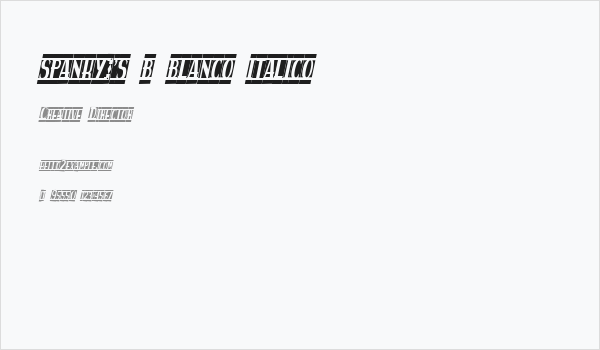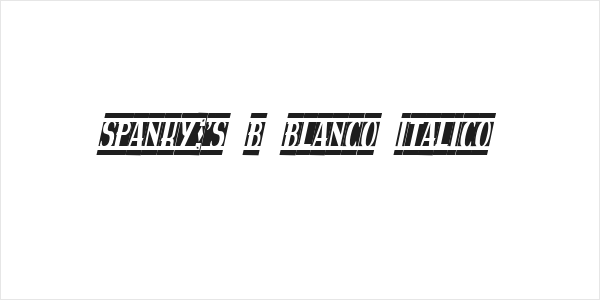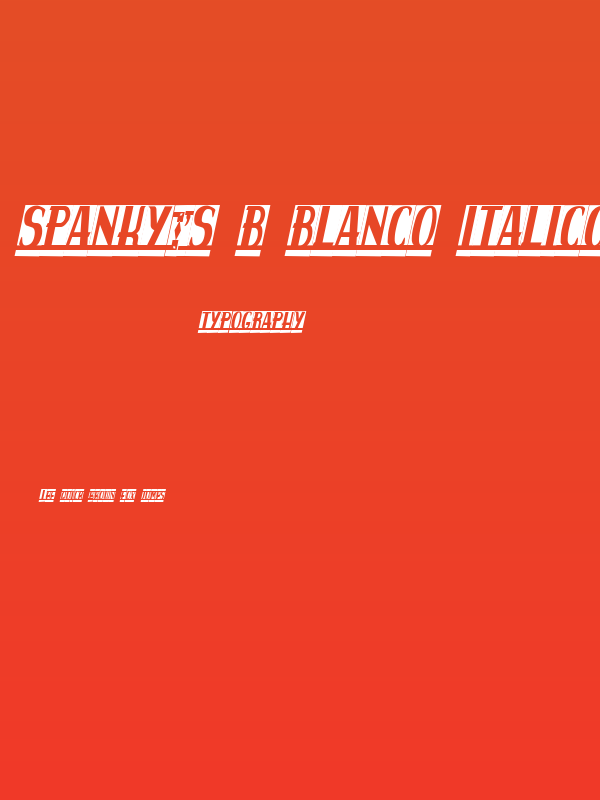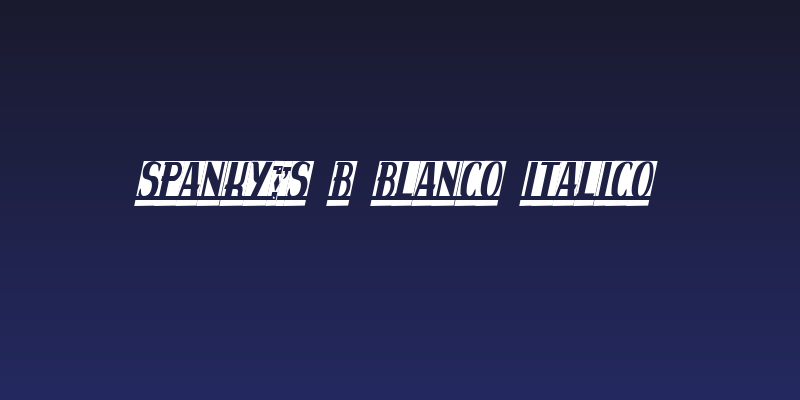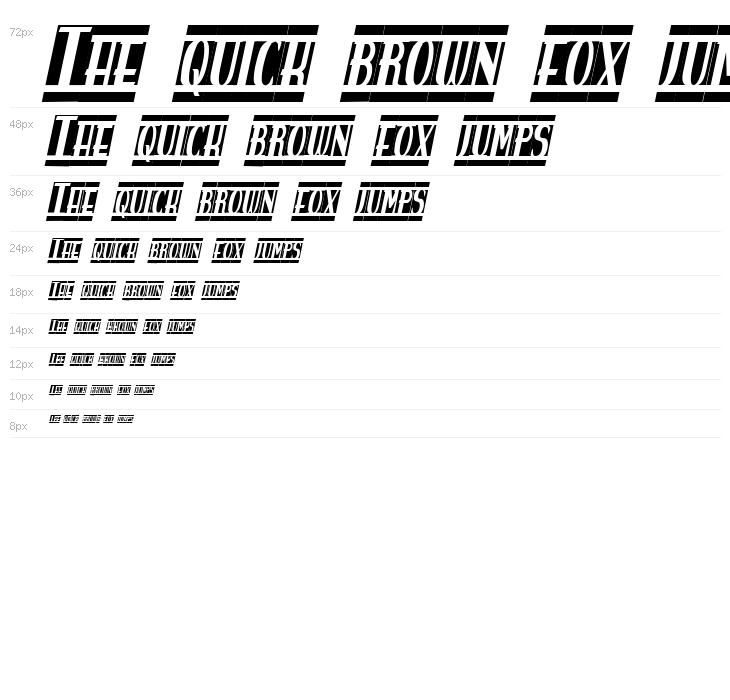
spanky's b blanco italico Font
spanky's b blanco italico Description
This font features a bold and dynamic design with a strong italic slant, giving it a sense of motion and energy. The characters are heavily stylized with thick strokes and sharp angles, creating a striking visual impact. The uppercase letters are particularly prominent, with a consistent height and width that enhances readability. The lowercase letters maintain the same bold style, ensuring uniformity across the text. Numbers and special characters are designed with the same boldness, making them stand out effectively. This font's unique style makes it suitable for attention-grabbing headlines and impactful designs.
| Proposed Projects | Ideal for posters, logos, branding materials, and any design requiring a bold, dynamic look. |